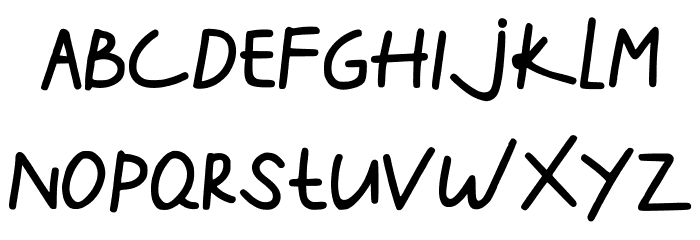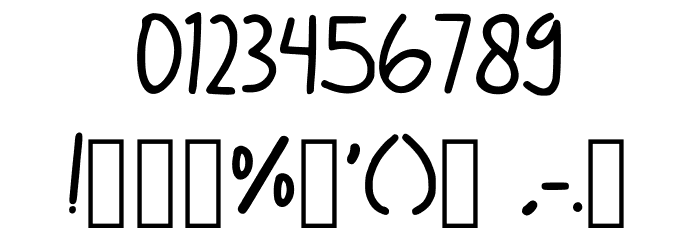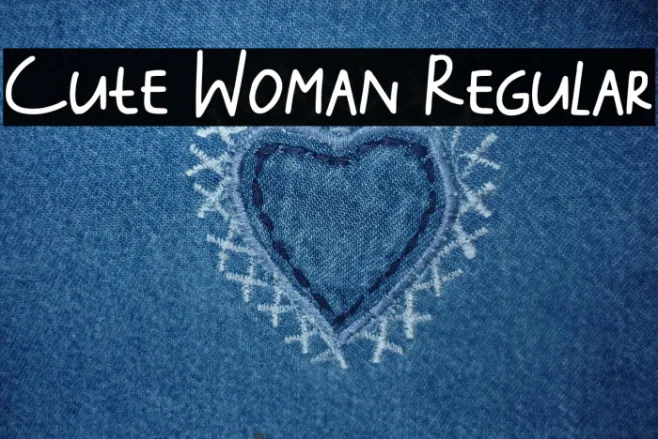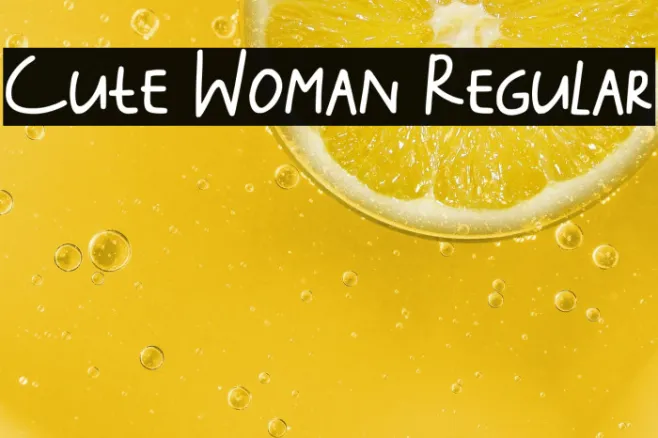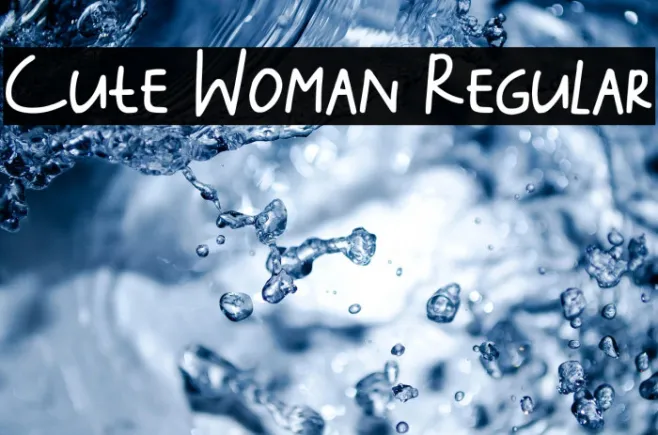
Cute Woman Regular Font
This playful and casual font features a handwritten style with a smooth and flowing appearance. The letters are slightly slanted, giving it a dynamic and lively feel. Each character is crafted with a consistent stroke width, maintaining a uniform look throughout. The font includes both uppercase and lowercase letters, numerals, and a variety of special characters, making it versatile for different uses. Its informal and friendly nature makes it ideal for projects that require a personal touch.
A playful handwritten font with a smooth, casual style.
- Proposed Projects: Great for greeting cards, children's books, personal blogs, and informal invitations.
- Overall Style: Casual
- Use Case: Logos, Headlines, Informal text